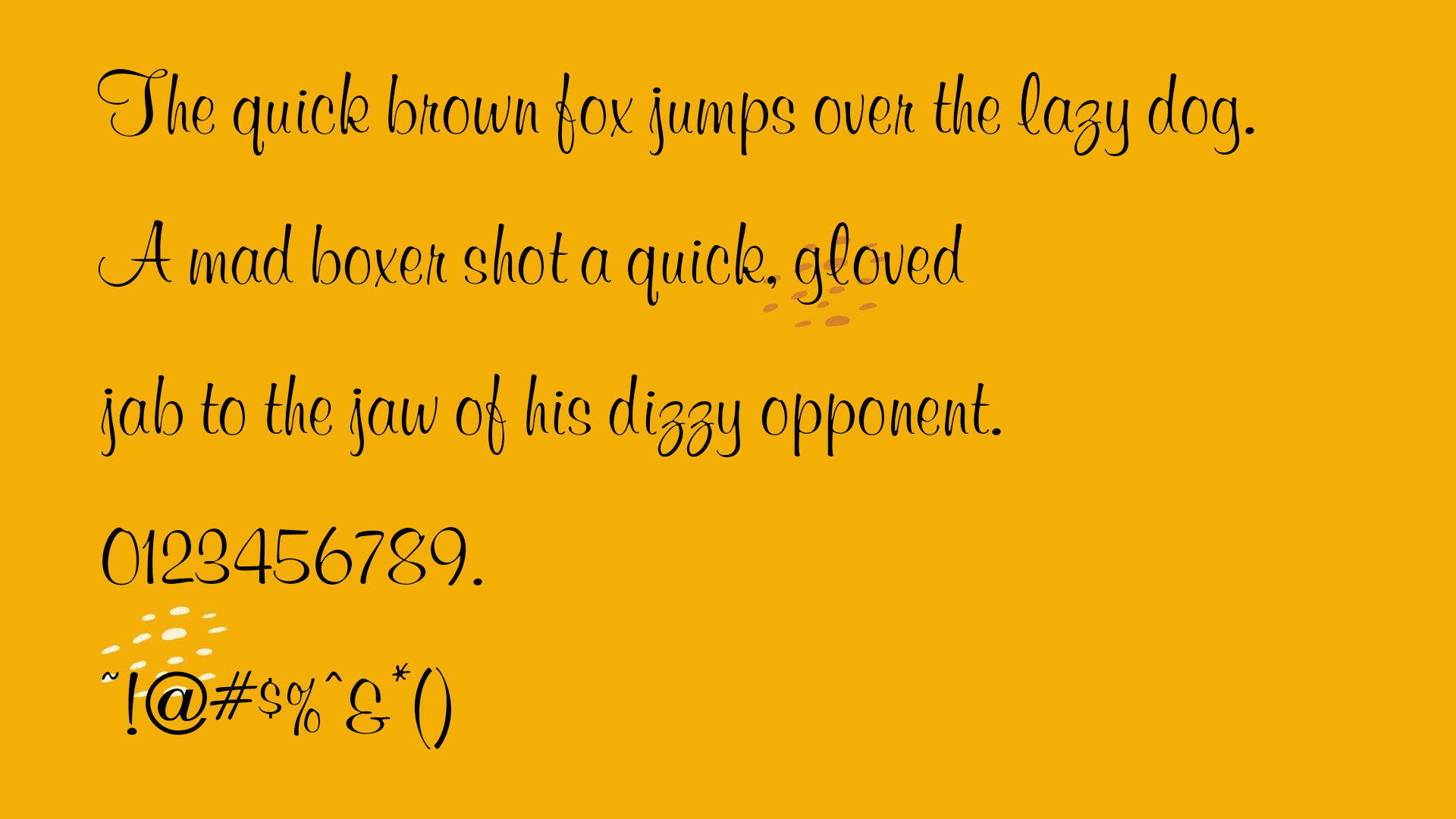
Murrayhill Font is a script font that was created by the type designer Alejandro Paul. It was designed to be used in a casual and contemporary way. The font has a very organic feel to it, and it is perfect for headlines, logos, and other creative projects. Murrayhill Font is available in both regular and italic versions, and it can be downloaded for free from here.
It has a very versatile look, and it can be used for a wide variety of projects. It is perfect for headlines, logos, and other creative designs, and it comes in both regular and italic versions. This font is also generated through a generator tool.
The font is based on the brush lettering that Alejandro Paul created in his sketchbook. He was inspired by the Murray Hill neighborhood in New York City, and he wanted to create a font that would reflect the energy and style of the area. The result is a fun and funky script font that is perfect for any project that needs a touch of personality.
Who Used Murrayhill Font?
It is a very versatile font, and it can be used for a wide variety of projects. It is perfect for headlines, logos, and other creative designs, and it comes in both regular and italic versions. This font has very unique letters that get a new shape to make a pair with Nexa Bold Font & Cursive Font.
The font has a very organic feel to it, and it is perfect for any project that needs a touch of personality. The Murrayhill neighborhood in New York City was the inspiration for this font, and it reflects the energy and style of the area.
Murrayhill Font Family Appearance
| Name | Murrayhill Font |
| Designer | Alejandro Paul |
| Style | Script |
Is Murrayhill a standard font?
Is Murrayhill a modern font?
Yes, It is a modern font. It was designed by the type designer Alejandro Paul in 2013.